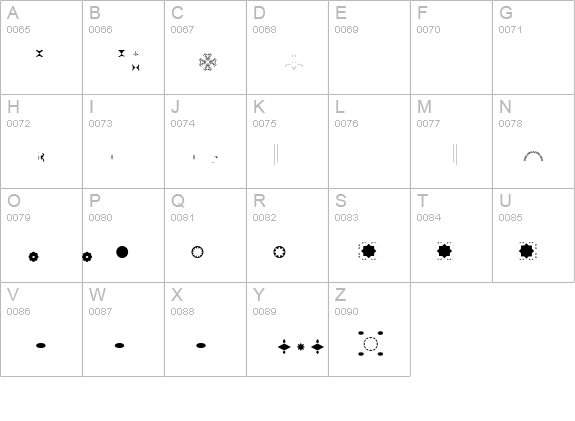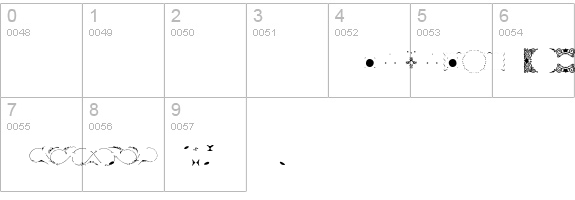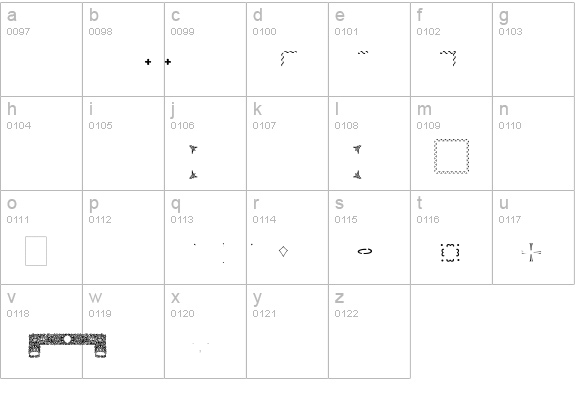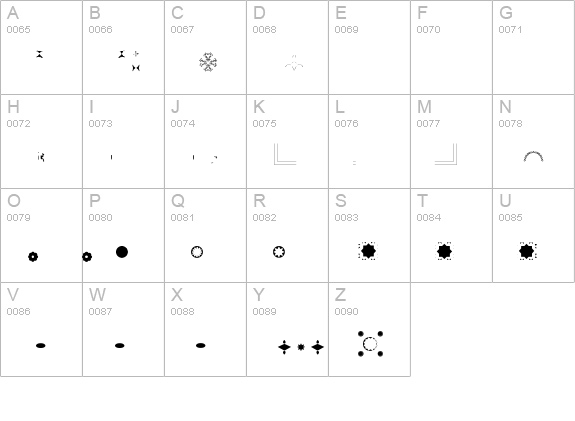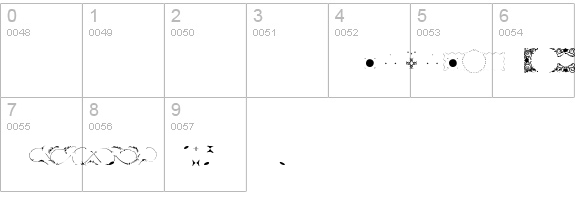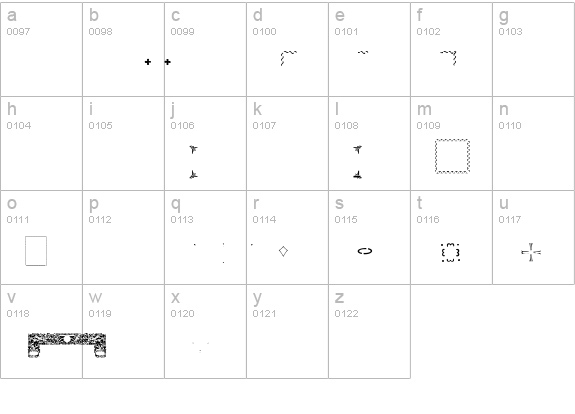
PFOrnmTreasures3-Layer4 font is a stunning display font that is sure to make your designs stand out. Featuring intricate layers and ornate details, this font exudes elegance and sophistication. Perfect for adding a touch of luxury to invitations, posters, and branding projects, PFOrnmTreasures3-Layer4 font is a versatile choice for any creative project. What's even better is that this font is available for free download at FontsMarket.com. Yes, you read that right - you can elevate your designs with this exquisite font without spending a dime. Don't miss out on the opportunity to enhance your projects with PFOrnmTreasures3-Layer4 font today!